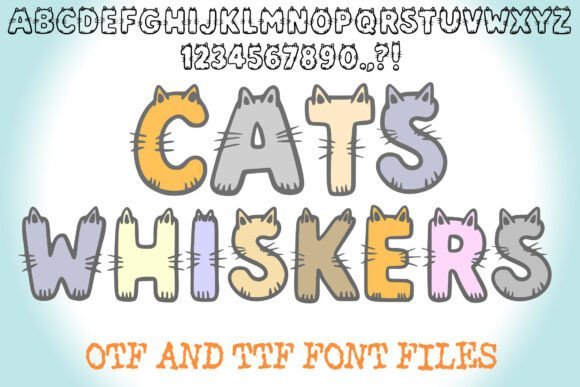
Introduction to Cats Whiskers Font
Cats Whiskers Alphabet Lettering ABC Text Kitten Font OTF β€œCats Whiskers” font t ransforms each character into a playful feline form, creating a unique and charming aesthetic.
The typeface is defined by its thick, rounded strokes and a distinctive hand-drawn style, with slightly wobbly outlines that add to its homemade, cheerful appeal Each letter is creatively illustrated with cat ears and delicate whiskers, giving the alphabet an endearing personality.